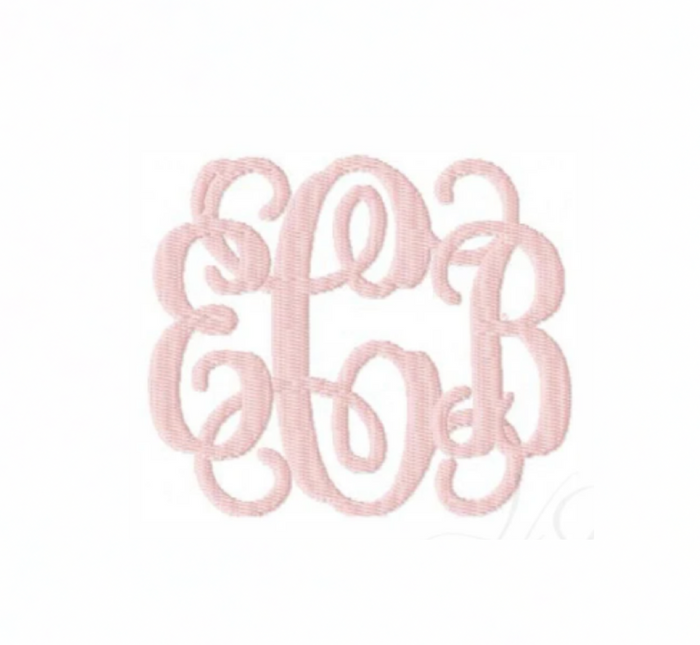
Grace Fill Bold Embroidery Font - Unique Designs
Transform your embroidery projects with the Grace Fill Bold Embroidery Font, perfect for adding personality to towels, fleece, and other high-pile materials. This versatile font comes in an array of sizes designed for stunning monograms.